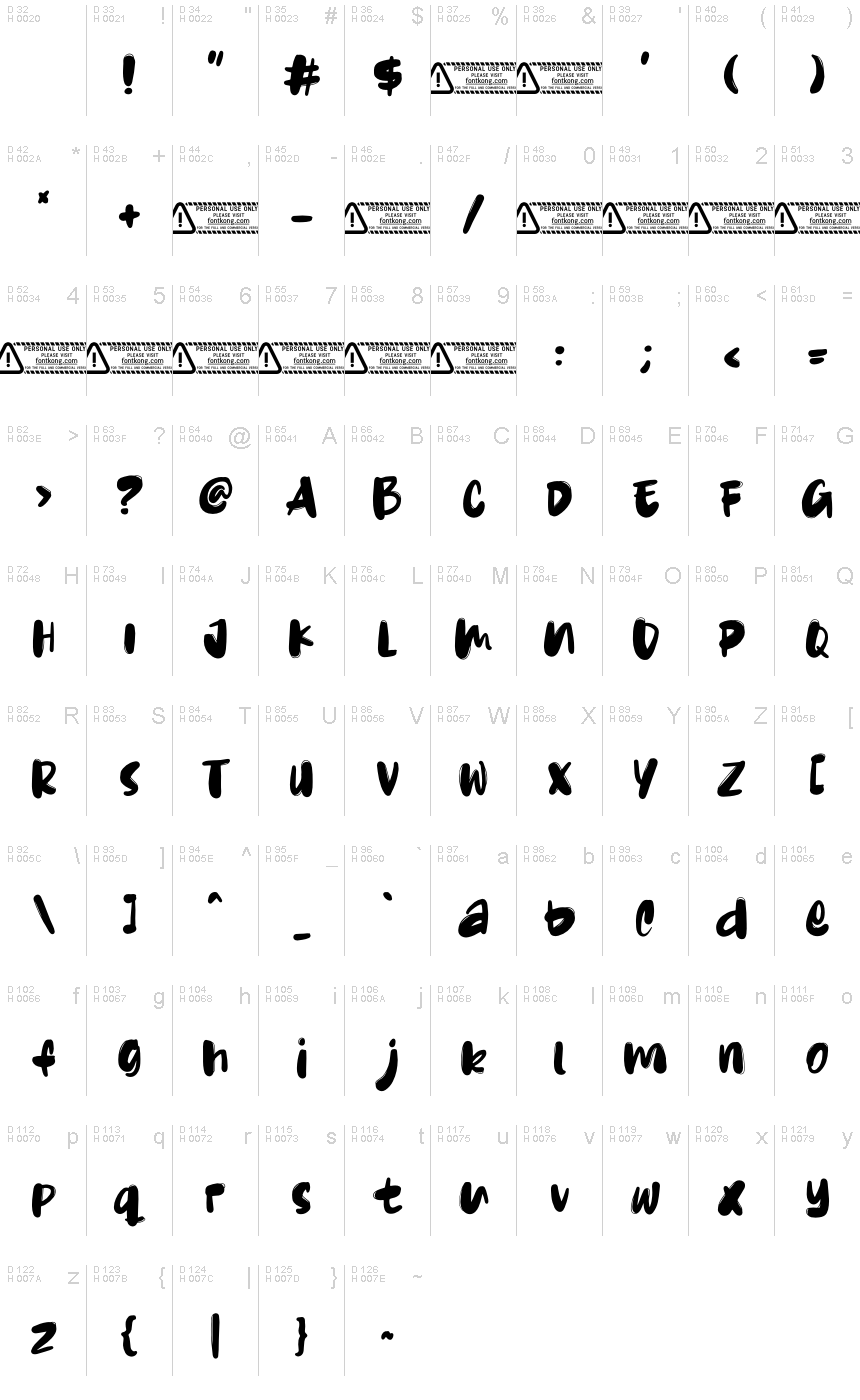
Milkids
Milkids font by Kong Font is a lively and informal display typeface that instantly projects youthful energy. Its bold style, reminiscent of playful handwriting, makes it a perfect free cartoon font option for infusing creativity into your design projects. The spirited and unapologetically bubbly character of Milkids adds an engaging tone, ideal for kid-focused content or where a lighthearted touch is needed.
Use this eye-catching type in posters, cartoons, labels, book covers, apparel designs, stickers, coloring books, comics titles and other publications. You can also complement magazine titles/texts with its youthful look to attract young readers besides using the font for games interfaces or packaging design.